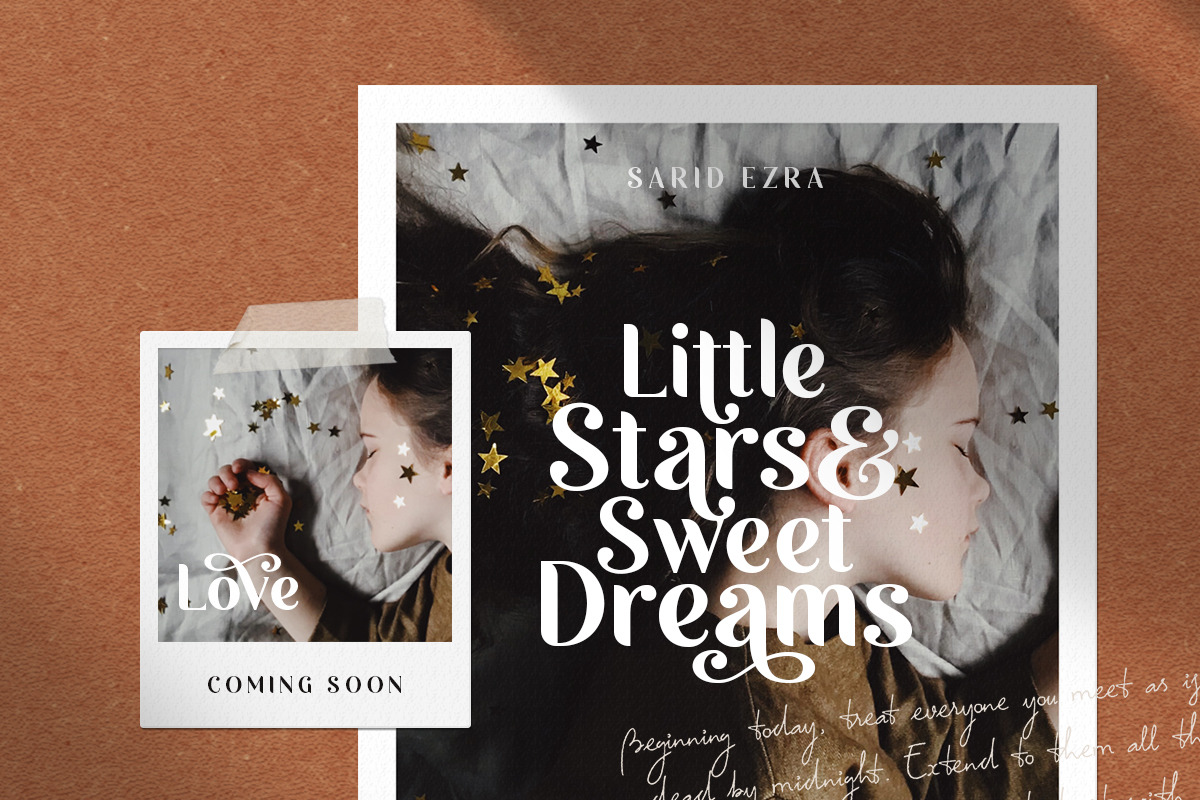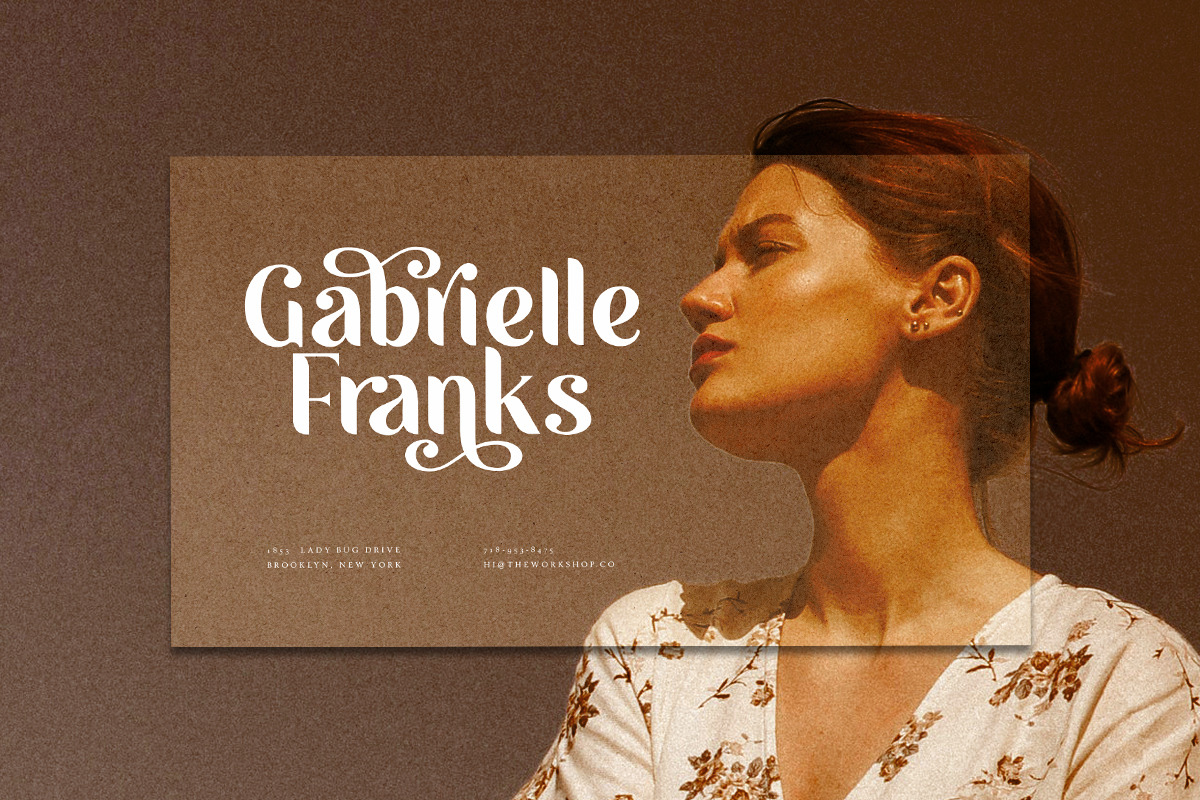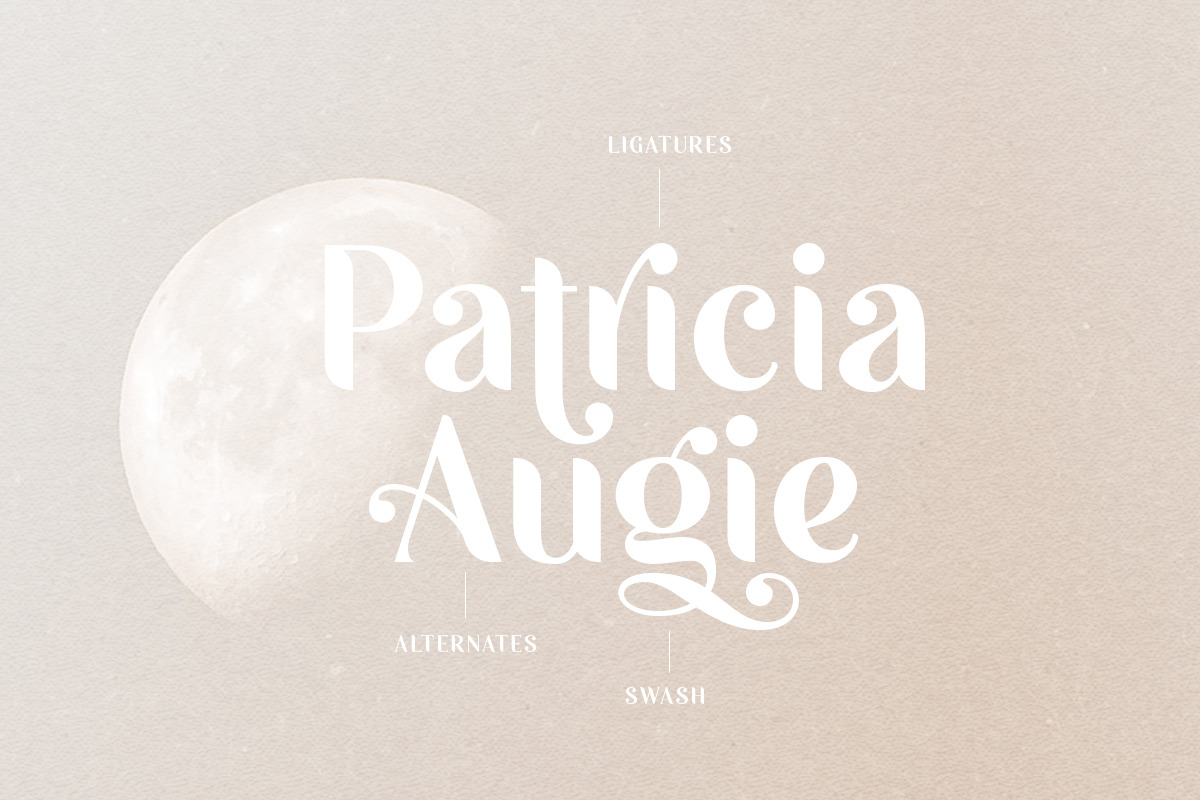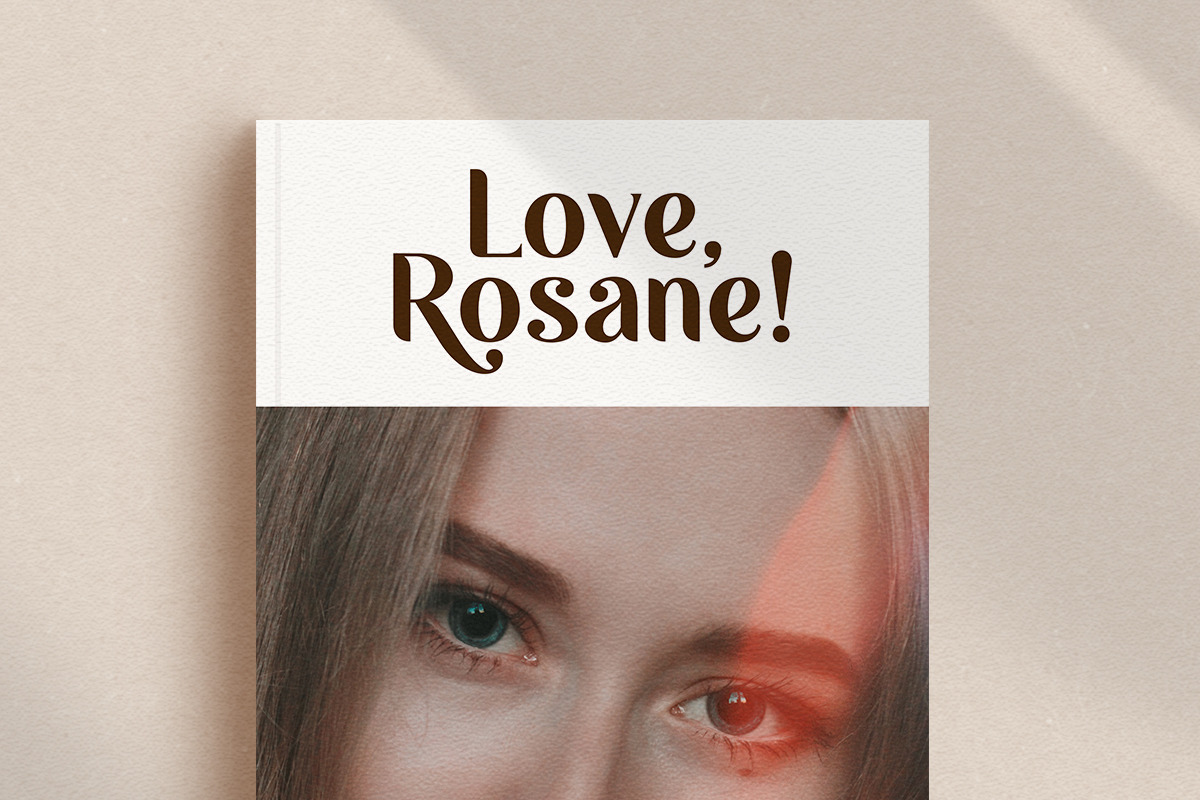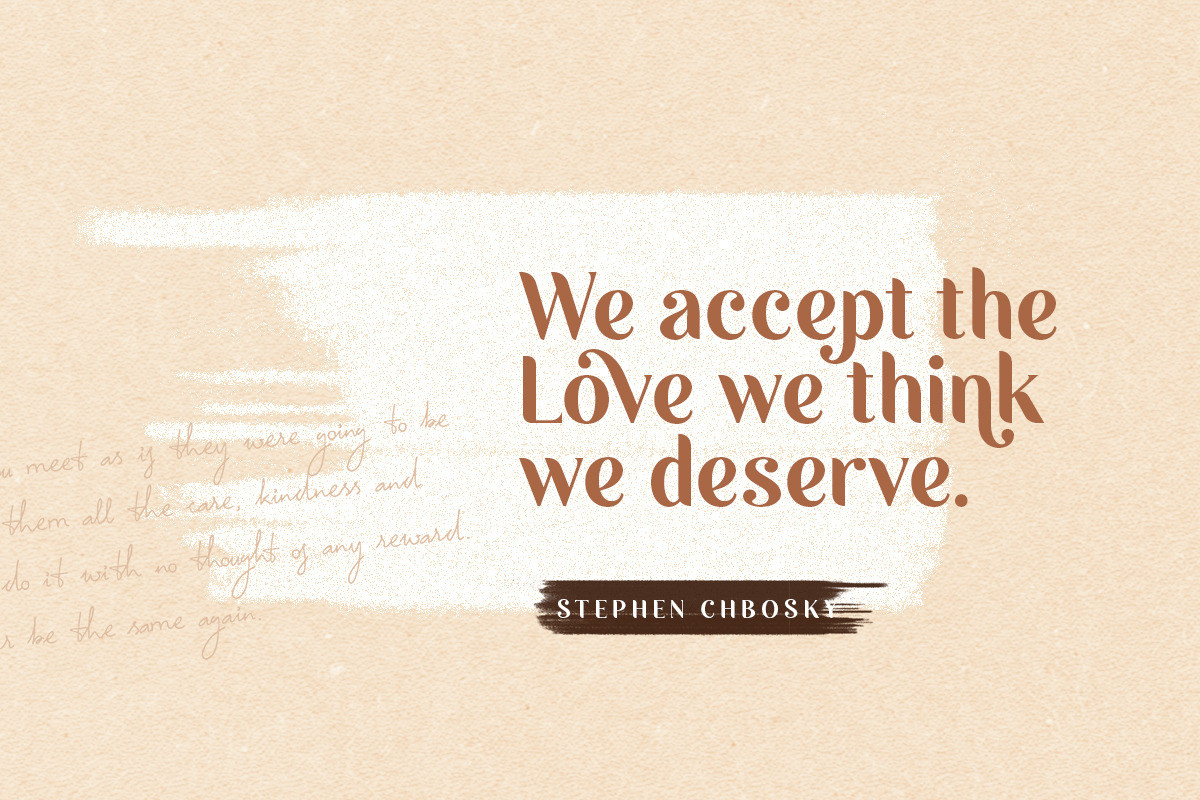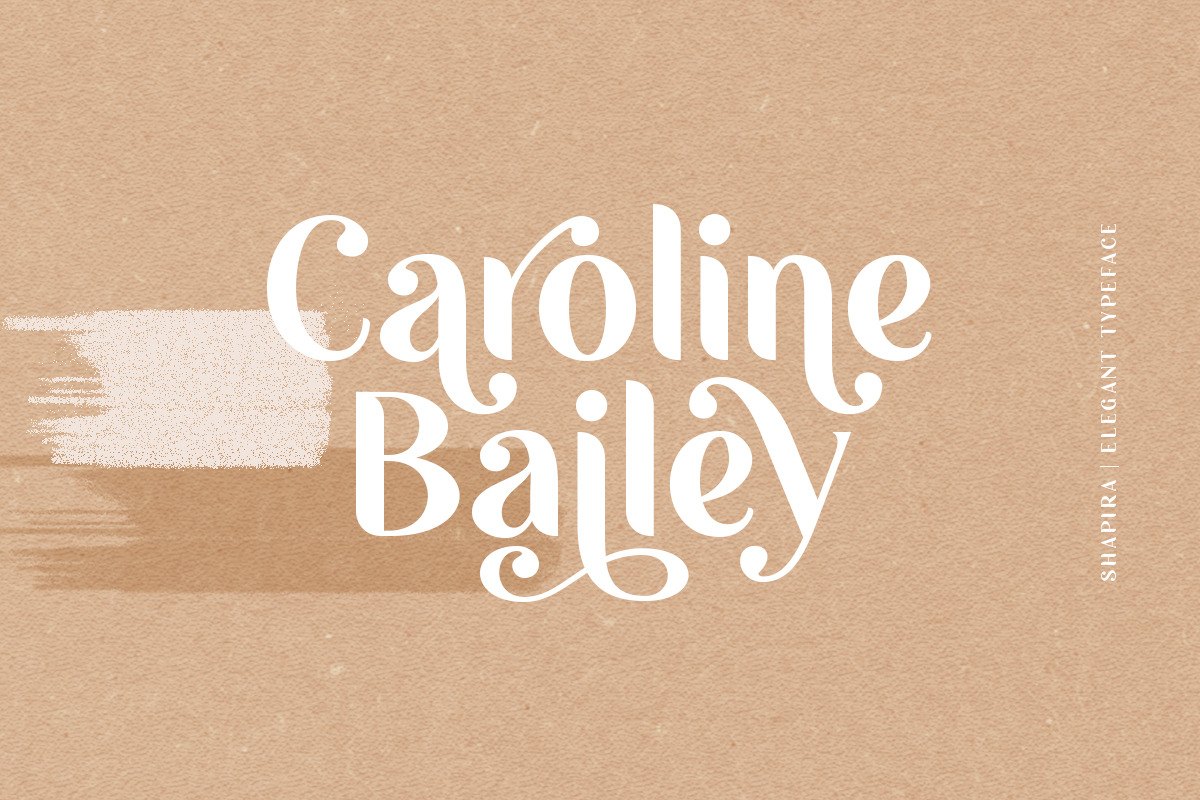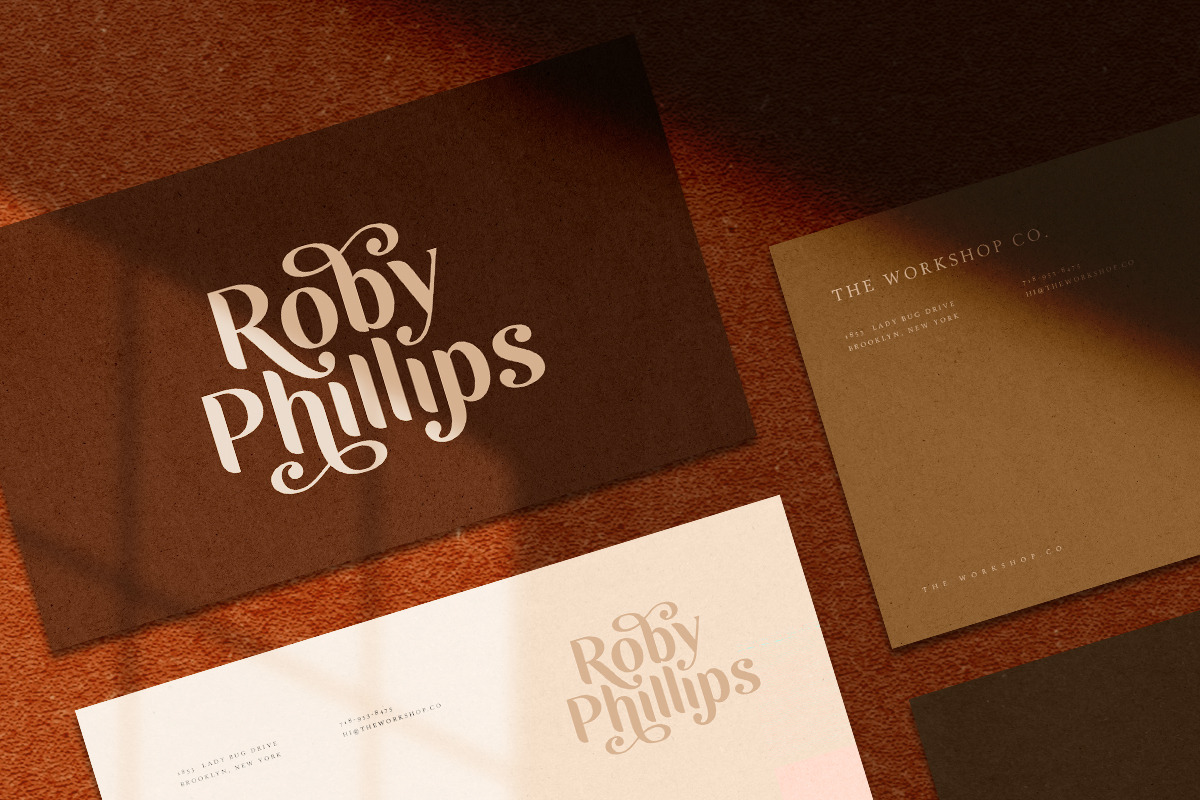
Saphira - Stylish Typeface
Introducing, Saphira - a stylish bold typeface with a bunch of ligatures and alternates!
Saphira is a bold and elegant typeface with a bunch of ligatures and alternates that will make your presentation, logo, or your wedding invitation even more stunning and stand out! Saphira also support Multi Language. and already PUA Encoded!
Alternates for each characters